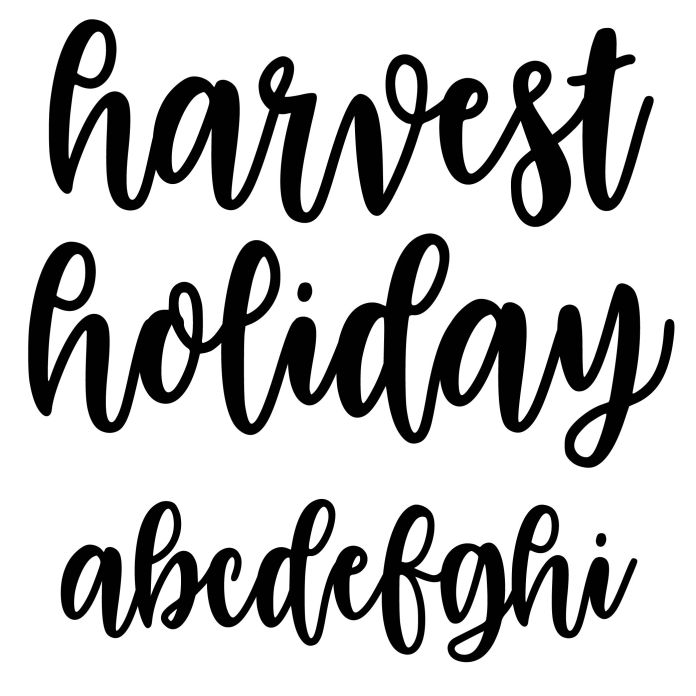
Harvest holiday brush script font
A cute cursive brush script font for Christmas, Thanksgiving, and Halloween crafts, cards, gifts, signs, monograms, and personalization projects.